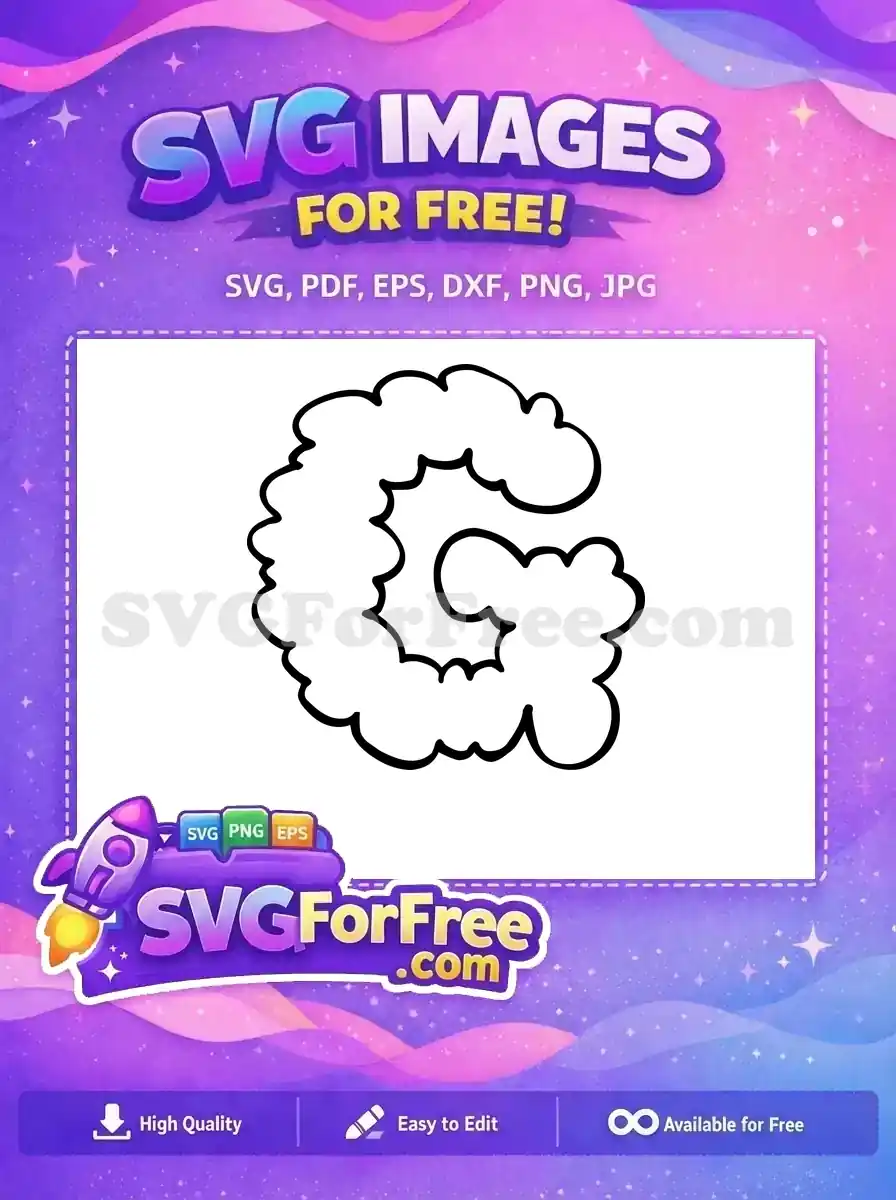
Free Letter G Font Free Cloud Style Alphabet Free SVG – Instant Download
Free bubbly letter G vector with cloud texture.
Free Letter G Font Free Cloud Style Alphabet Free SVG